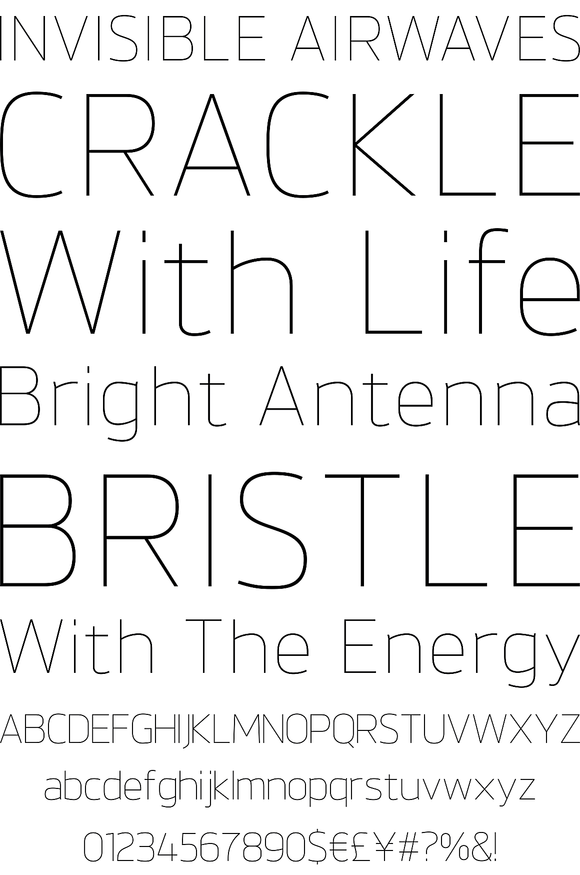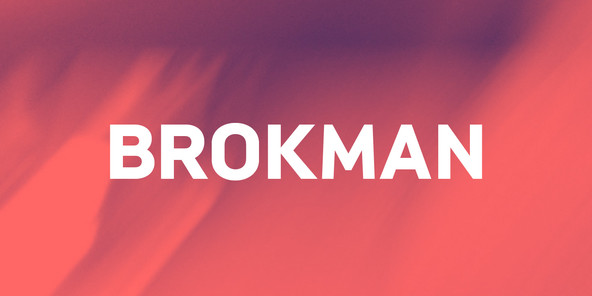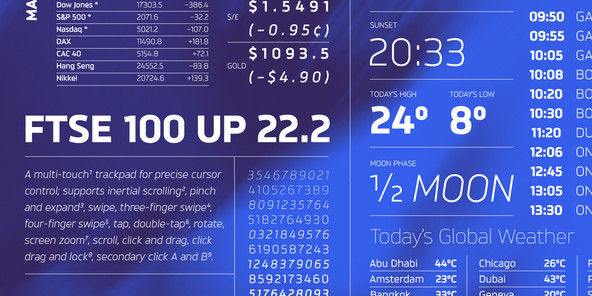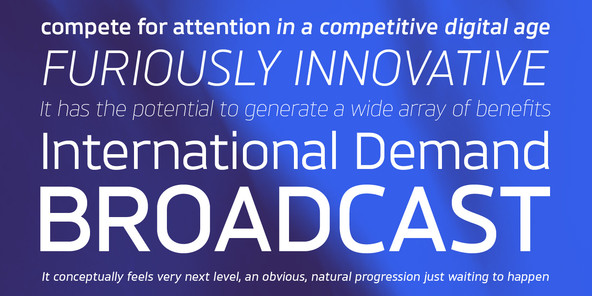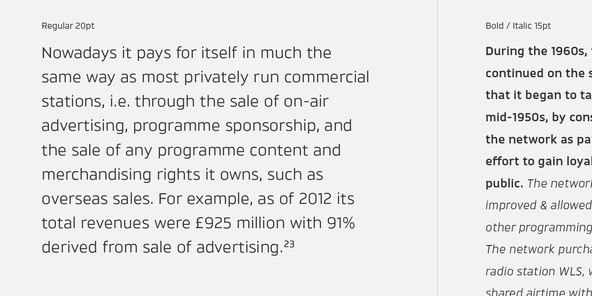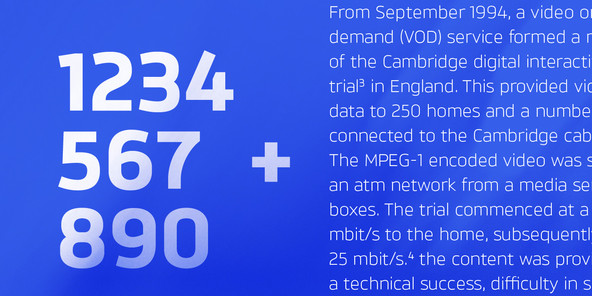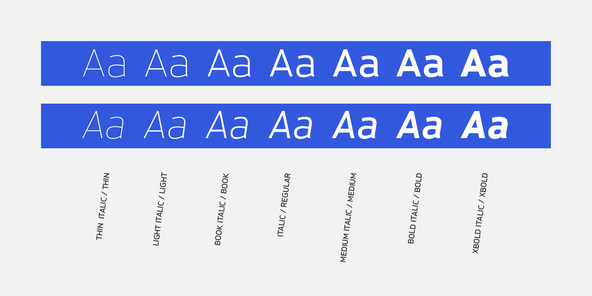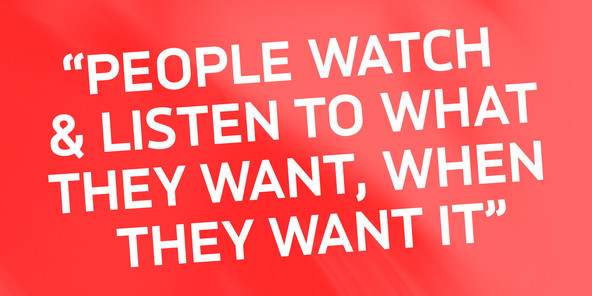
Brokman
A contemporary sans serif typeface. The evolution of the design is in response to feedback gathered from various professional bodies in the typographic industry. From the information collated a simple brief was developed to answer the following key points of constructive criticism. 1. To develop a style that is new in concept and relevant to todays market place. 2. To maintain an optical balance between horizontal and vertical strokes. 3. To resolve optical problems in the heavier weights whilst maintaining a smooth line consistency throughout the family and finally to deliver a technical well spaced font that can work across a wide variety of media and devices. Brokman includes 10 weights, a full character set, manually edited kerning and Euro symbol.